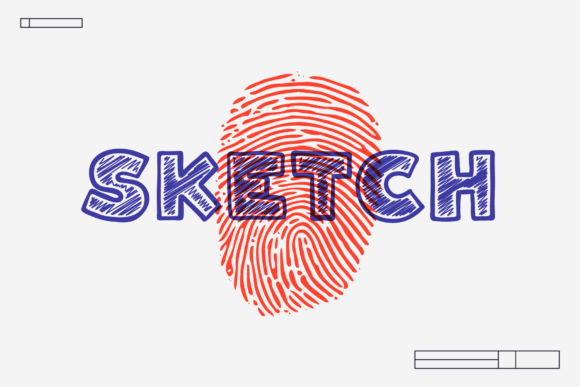
Step inside the world of design and let your imagination run wild with Sketch Font, the ultimate display font for your creative endeavors. Crafted with precision and passion by kaer_cf, this font exudes a unique charm that will captivate and inspire. Each carefully crafted character dances across the page, forming a symphony of style and elegance.
With its crisp, outlined edges and playful personality, Sketch Font is a true game-changer in the world of design. Whether you're creating stunning logos, eye-catching t-shirt prints, or unleashing your creativity on unique projects, this font will elevate your designs to new heights.
Dive into a world where creativity knows no bounds and let Sketch Font ignite your imagination. Its versatility is truly remarkable, allowing you to effortlessly create designs that speak to your heart. From bold and striking statements to delicate and whimsical expressions, Sketch Font is your perfect companion in expressing yourself through design.
So, why settle for ordinary when you can have extraordinary? Embrace the power of Sketch Font today and unlock a world of endless possibilities. Let your designs flourish and make a lasting impression with this captivating font. Experience the magic of Sketch Font and let your creativity soar.